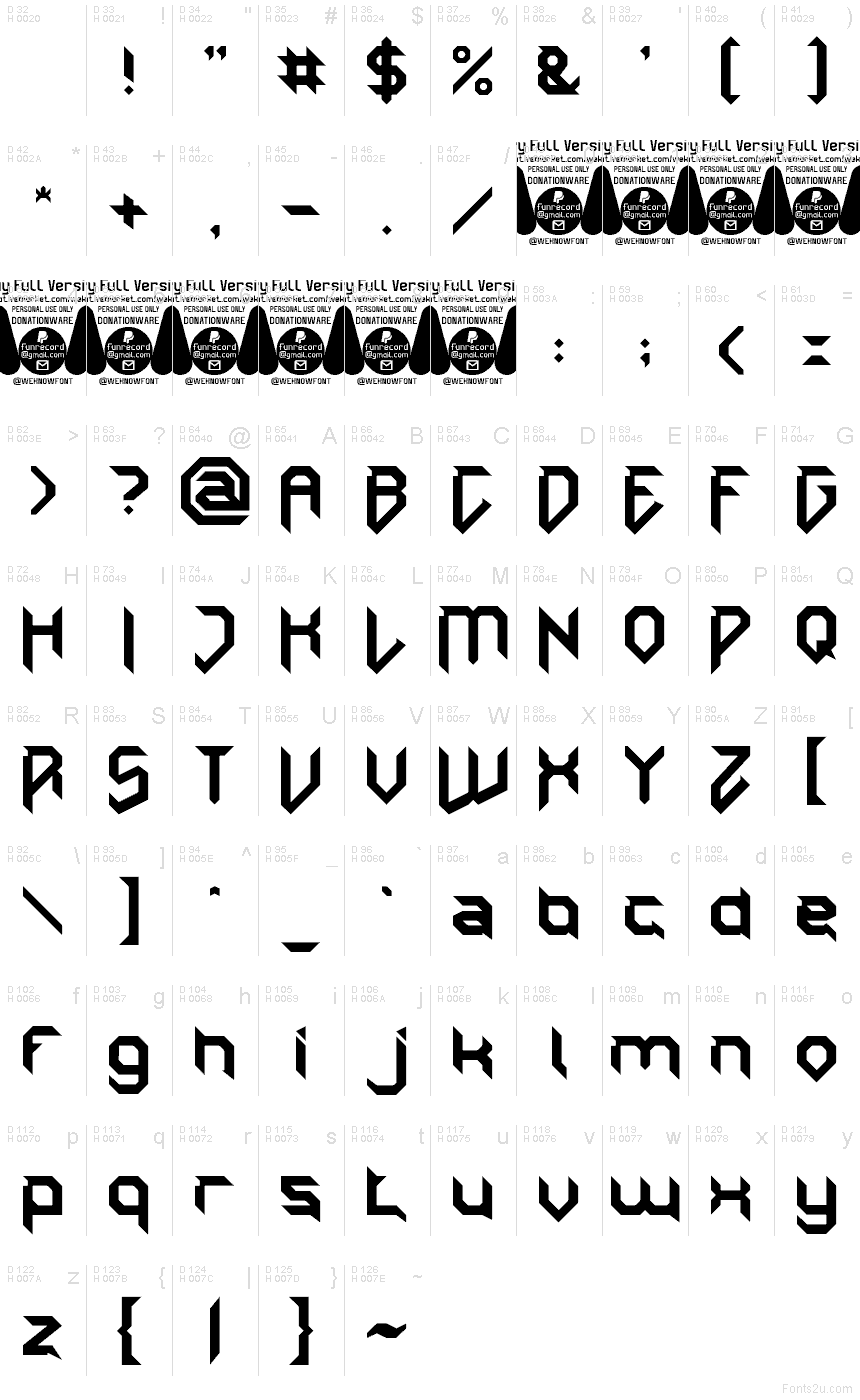
Captain Pilot
Captain Pilot font by weknow is a free modern gothic display font. It stands out with chiseled, faceted strokes and octagonal bowls that feel carved from matte metal—techno-meets-blackletter. Angular terminals and tight inner corners create a brisk, forward cadence, while the chunky silhouettes keep lines crisp and unmissable at a glance.
Using Captain Pilot, headlines snap with sci‑fi authority—great for game titles, esports branding, tech posters, dystopian book covers, drone racing graphics, and streaming overlays. This free font thrives large; give it slightly looser tracking for air and pair with a clean grotesk or monospaced subhead to handle body copy without stealing its thunder.